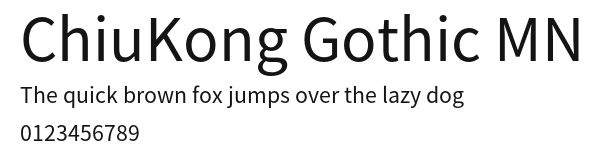
ChiuKong Gothic MN Preview
About ChiuKong Gothic MN.otf
ChiuKong Gothic MN.otf is a modern, elegant sans-serif font designed for ultimate readability and visual harmony. Perfect for branding, headlines, web design, and print materials.